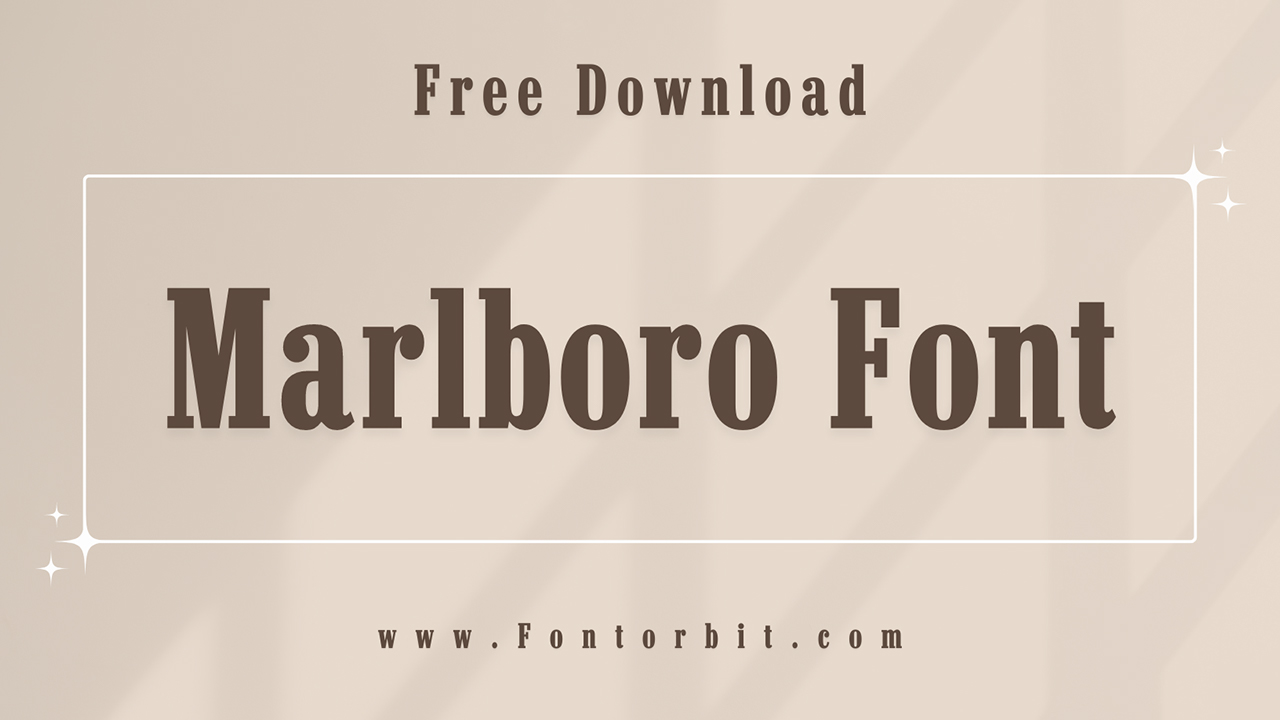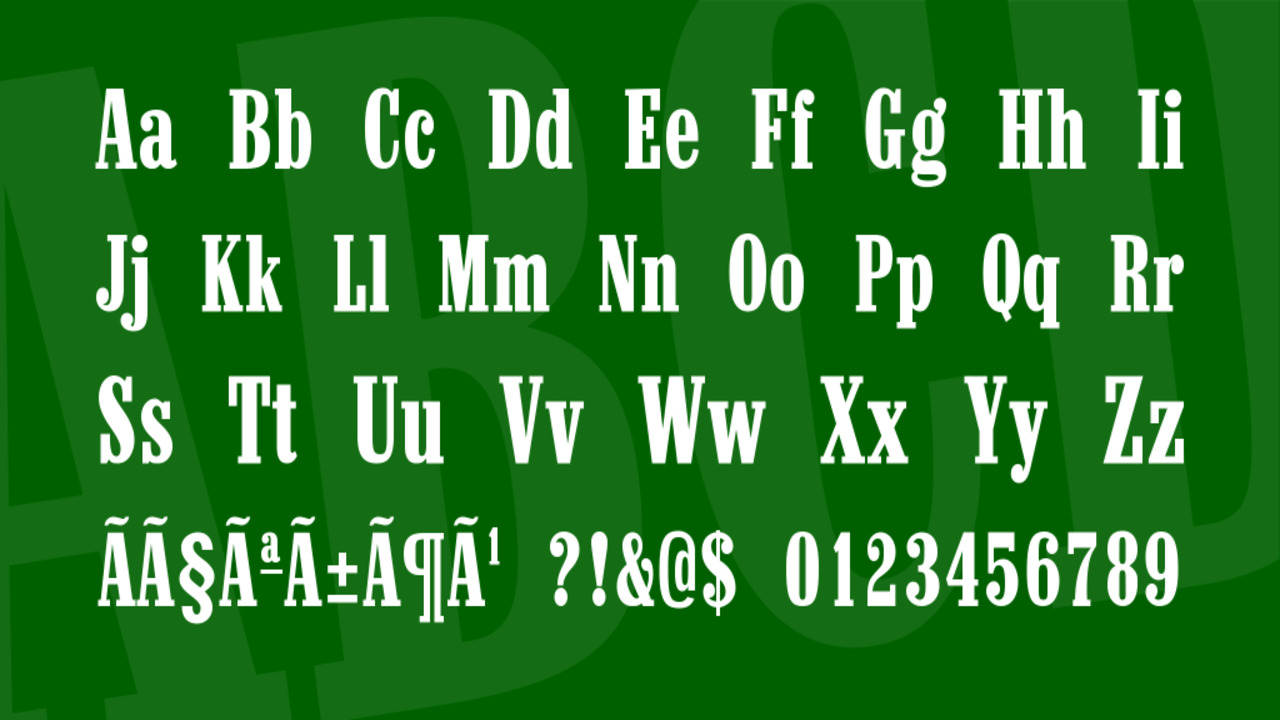
Marlboro Font (Developed by IMSI MasterFonts) was designed by Dieter Steffmann in 2000 for application in logo designs. Captures the classic slab-serif style reminiscent of the iconic Marlboro cigarette brand.
Known for its bold and distinctive appearance, the font mirrors the serif typeface used in Marlboro’s wordmark. With a total of 226 glyphs and 219 characters, Marlboro Font supports basic Latin and diacritical letters, making it a versatile choice for various design needs.
The Marlboro Font Family
- Marlboro Regular
- Marlboro Bold
- Marlboro Italic
- Marlboro Light
The Marlboro font family includes several styles: Regular, Bold, Italic, and Light. Each style contributes to the font’s bold nature and textured appearance, adding a robust, eye-catching quality to your text.
The font’s slab-serif design features thin, bold edges and a unique style that stands out in both digital and print formats. It’s available in more than 225 unique and stylish Glyphs and 219 characters. Marlboro Font offers significant design flexibility and aesthetic appeal with its various weights and styles.
| Style: | Slab Serif |
Notable Uses: Marlboro Font
- Logo Designs
- Book Covers
- Comic Covers
- Emblems
- Homeware Designs
- Website Designs
- Greeting Cards (Wedding, Business, Birthday)
Marlboro Font is widely used in branding and design projects where a strong, classic typeface is needed. Its bold and stylish appearance makes it ideal for creating impactful logos and designs that require a touch of sophistication and clarity. Whether for book covers, emblems, or greeting cards, Marlboro Font provides a distinguished and memorable look.
Final Words
Its high glyph count and versatile design make it suitable for various applications, from branding and logo design to book covers and web design. Consider pairing it with Hornet Font for a complementary touch to enhance its visual impact.
2.Who Designed The Marlboro Typeface?
The Marlboro typeface was designed by Dieter Steffmann.
3.What Is The Marlboro Typeface Generator Tool?
Online generators create Marlboro-like text effects, but there is no specific tool named Marlboro Typeface Generator.
4.What Fonts Are Similar To Marlboro?
Similar fonts include Bookman, Emilio, Abril Fatface, and Old Marlboro.
6.Where Can You Use Marlboro Font?
Marlboro Font is used in logos, book covers, websites, invitations, and greeting cards.
7.What Font Is Used For Marlboro Cigarettes?
The Marlboro cigarettes logo uses a custom serif typeface similar to the Marlboro Font.
9.What Are The Different Weights Available In Marlboro Font?
Marlboro Font is available in the following weights: Regular, Bold, Italic, Light, and Extra Light.
10.What Are The Best Pairings For Marlboro Font?
Pair Marlboro Font with clean sans-serifs like Helvetica or minimal serifs like Playfair Display for a sophisticated, balanced design.